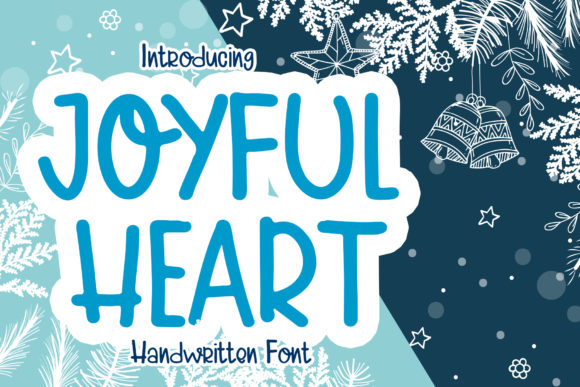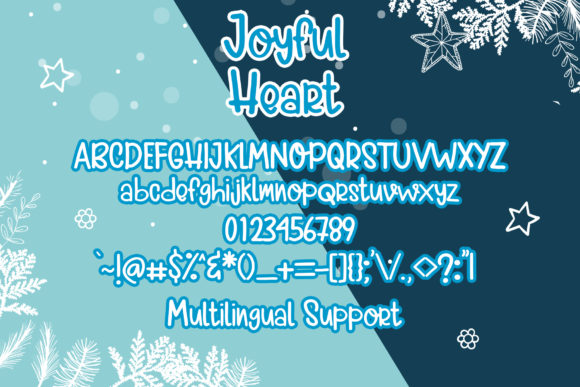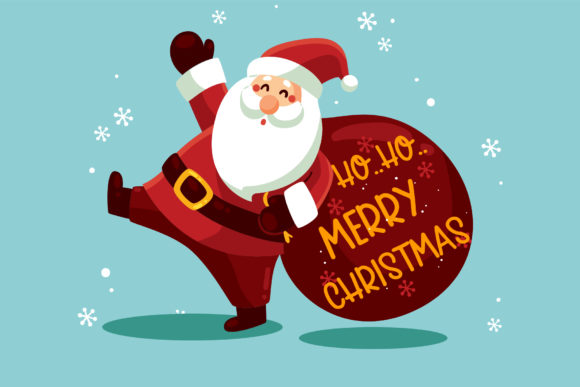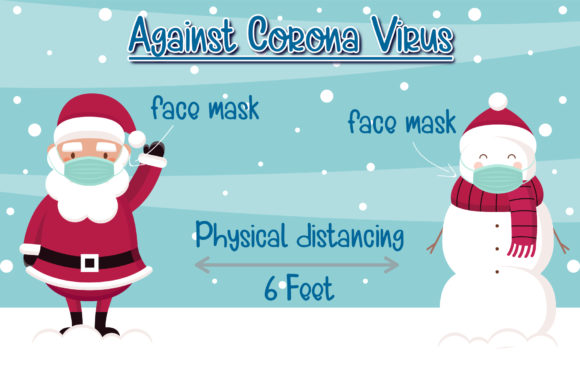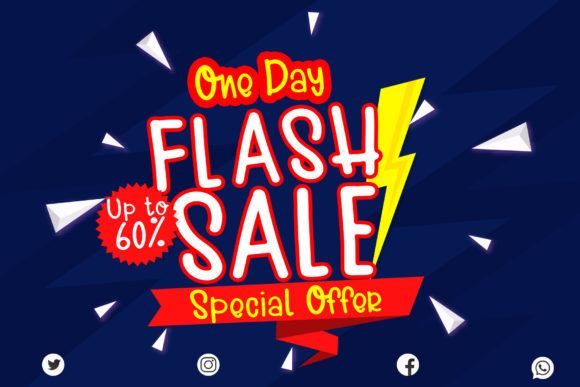
Joyful Heart Font
About Joyful Heart Font
Joyful Heart is a wonderful handwritten font that can be used in all your festive designs, Christmas crafts, and all year design projects that need a personal touch!